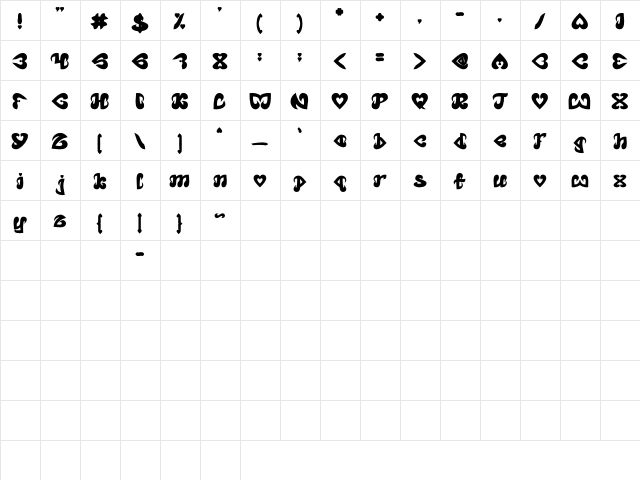
Eternal Love Bold
Design Context for Eternal Love Typeface
Eternal Love is a composed and adaptable typeface that performs quietly and consistently across a wide range of design contexts. Its bold stroke weight gives it real presence on the page.